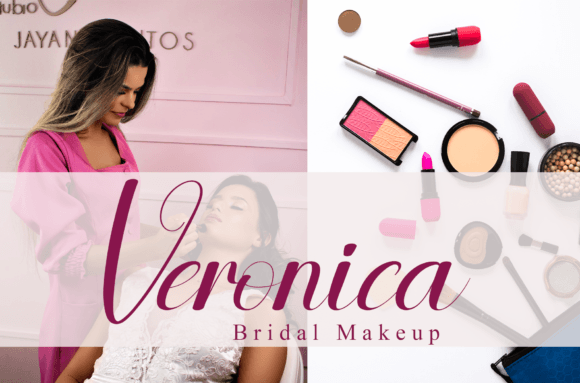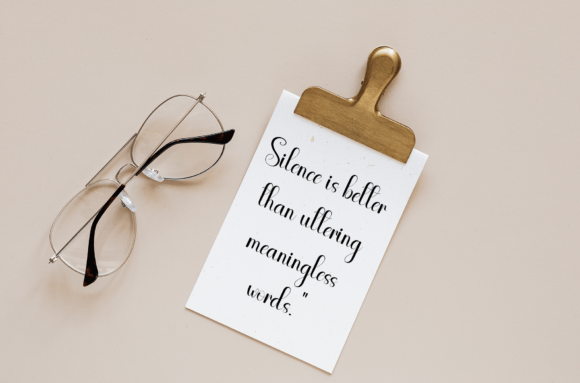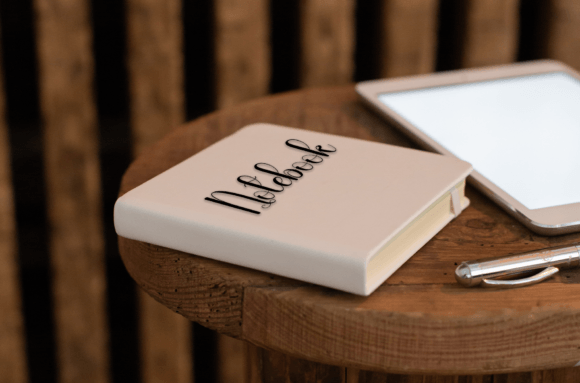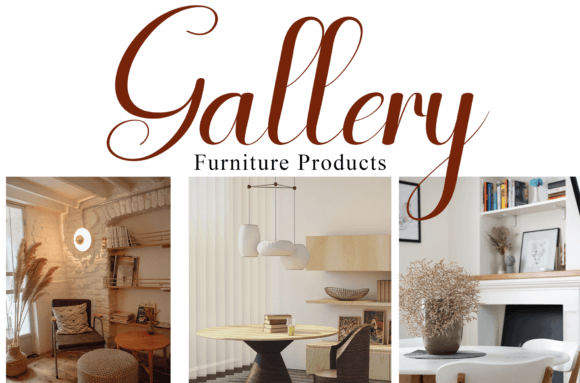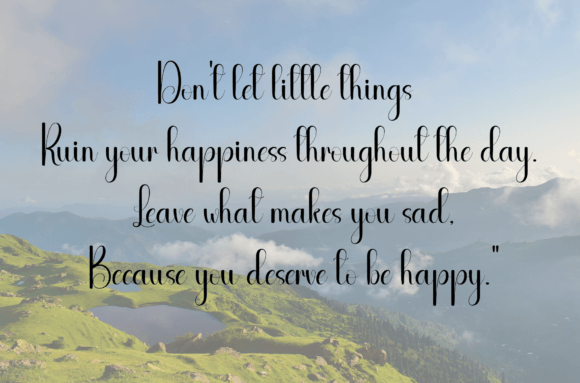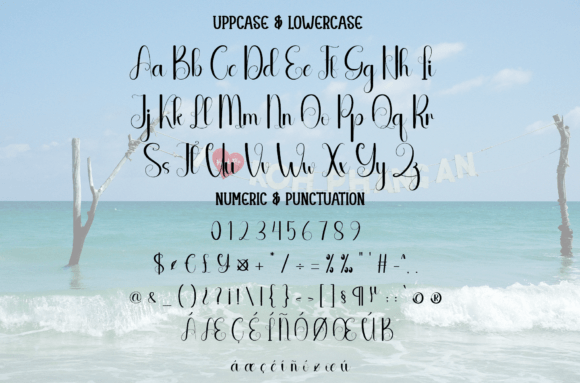
Crackle Font: Add a Sweet and Friendly Touch to Your Designs
Are you looking for a font that can add a playful and charming touch to your designs? Look no further than Crackle Font! This sweet and friendly handwritten font is perfect for creating wedding invitations, cards, and other designs that require a fun and approachable vibe.
What is Crackle Font?
Crackle Font is a beautiful handwritten font that is fresh, neat, and full of character. Its unique and whimsical design makes it ideal for a variety of design projects, from wedding invitations and greeting cards to posters, flyers, and more.
Key Features of Crackle Font
- Sweet and Friendly Design: Crackle Font has a warm and inviting design that is sure to capture the attention of your audience.
- Handwritten Style: This font has a beautiful handwritten style that gives it a personal and unique touch.
- Fresh and Neat: The font is clean and easy to read, making it perfect for use in a variety of design projects.
- Fun and Playful: Crackle Font has a playful and fun design that is sure to add a smile to your audience’s face.
Uses of Crackle Font
Crackle Font is a versatile font that can be used in a variety of design projects, including:
- Wedding Invitations: This font is perfect for creating beautiful and unique wedding invitations that will set the tone for your special day.
- Greeting Cards: Crackle Font is ideal for creating fun and playful greeting cards for birthdays, holidays, and other special occasions.
- Posters and Flyers: This font can be used to create eye-catching posters and flyers that will grab the attention of your audience.
- Social Media Graphics: Crackle Font can be used to create fun and engaging social media graphics that will help you connect with your audience.
Why Choose Crackle Font?
There are many reasons why you should choose Crackle Font for your design projects. Here are a few:
- Unique Design: Crackle Font has a unique and whimsical design that will set your designs apart from the rest.
- Easy to Read: This font is clean and easy to read, making it perfect for use in a variety of design projects.
- Versatile: Crackle Font can be used in a variety of design projects, from wedding invitations to social media graphics.
- Fun and Playful: This font has a fun and playful design that is sure to add a smile to your audience’s face.
Tips for Using Crackle Font
Here are a few tips for using Crackle Font in your design projects:
- Use it for Headings: Crackle Font is perfect for use in headings and titles, where its playful and fun design can really shine.
- Pair it with Other Fonts: This font can be paired with other fonts to create a unique and interesting design.
- Experiment with Colors: Crackle Font looks great in a variety of colors, so don’t be afraid to experiment and find the perfect color for your design.
Crackle Font is a sweet and friendly handwritten font that is perfect for adding a fun and playful touch to your designs. With its unique and whimsical design, this font is ideal for use in a variety of design projects, from wedding invitations to social media graphics. So why not give Crackle Font a try and see how it can add a sweet and friendly touch to your designs?